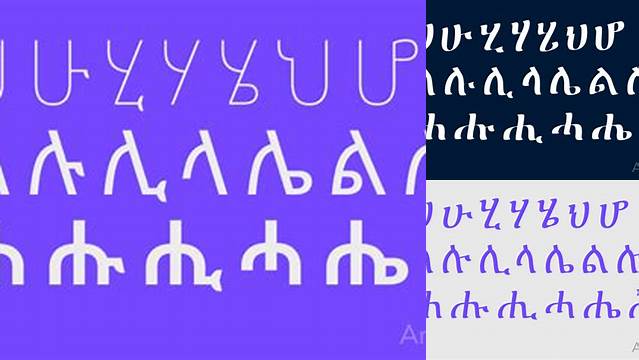
Free Amharic Fonts: Download The Best Ge'ez Script Typefaces
Are you looking to download free Amharic fonts? You've come to the right place! In this comprehensive guide, we'll explore the fascinating world of Amharic typography, discuss the importance of using the right fonts, and provide you with resources for finding and downloading high-quality Amharic fonts for your projects. Amharic, written in the Ge'ez script, is a beautiful and unique language with a rich history. Using the appropriate fonts is crucial for ensuring readability and accurately representing the nuances of the language. Whether you are designing a website, creating documents, or working on graphic design projects, having access to a diverse range of Amharic fonts is essential. Let's dive in and discover the best options available for free Amharic font downloads.
Understanding Amharic and the Ge'ez Script
Let's kick things off by understanding Amharic and the Ge'ez script. Amharic is the official language of Ethiopia and is spoken by millions of people worldwide. It belongs to the Semitic language family and is closely related to other languages like Tigrinya and Hebrew. What makes Amharic unique is its writing system, the Ge'ez script (also known as Ethiopic script). This script is an abugida, where each symbol represents a consonant-vowel pair. The Ge'ez script is visually distinct and adds a unique aesthetic to any text written in Amharic. It's crucial to use fonts that accurately represent this script to maintain the integrity and beauty of the language. Using the wrong fonts can lead to misinterpretations and make the text difficult to read. For instance, some fonts may not include all the necessary characters or ligatures, which are essential for proper Amharic typography. Imagine trying to read English if some letters were missing or replaced with similar-looking symbols – that's the kind of challenge you might face with poorly designed or incomplete Amharic fonts. So, selecting the right font isn't just about aesthetics; it's about ensuring clear communication and respect for the language itself. Whether you're creating a poster, a website, or a document, the font you choose plays a significant role in how your message is received and understood.
Why High-Quality Amharic Fonts Matter
Now, let's talk about why high-quality Amharic fonts matter. You might be thinking, "Why can't I just use any font that has Amharic characters?" Well, guys, it's not that simple! High-quality Amharic fonts are essential for several reasons. First and foremost, readability. A well-designed font ensures that each character is clear and distinct, making it easier for readers to understand the text. This is especially crucial in Amharic, where subtle differences in characters can change the meaning of words. Secondly, aesthetics. A good font enhances the visual appeal of your work, making it more engaging and professional-looking. Imagine creating a beautiful poster or website, only to have the Amharic text look clunky or awkward because of a poorly designed font. It can really detract from the overall impact. Thirdly, cultural accuracy. Amharic fonts should accurately represent the Ge'ez script, including all the necessary characters and ligatures. Using a font that doesn't do this can be disrespectful to the language and culture. Think of it like this: you wouldn't want to use a font that mashes up English letters with other symbols, right? It's the same principle here. So, investing in or finding high-quality Amharic fonts is an investment in the clarity, beauty, and cultural integrity of your work. It's about showing respect for the language and your audience. Whether you're a designer, a writer, or anyone else working with Amharic text, choosing the right font is a crucial step in creating effective and impactful communication. In addition to readability, aesthetics, and cultural accuracy, high-quality Amharic fonts also ensure consistency across different platforms and devices. A well-designed font will render correctly on various operating systems, web browsers, and mobile devices, preventing unexpected display issues. This is particularly important if your work will be viewed by a wide audience, as you want to ensure that everyone has the same positive reading experience.
Where to Find Free Amharic Fonts
Okay, so where can you actually find free Amharic fonts? Don't worry, there are some great resources out there! One of the best places to start is Google Fonts. They have a selection of Amharic fonts that are free to use and easy to implement on websites. Another great resource is the Ethiopian Font Project, which aims to create and distribute high-quality Amharic fonts. They have a variety of fonts available for download, including both traditional and modern styles. Font libraries like Font Squirrel and DaFont also sometimes offer free Amharic fonts, so it's worth checking those out as well. When you're downloading fonts, make sure to pay attention to the license. Most free fonts come with a specific license that outlines how you can use them. Some licenses may restrict commercial use, while others allow it. It's always a good idea to read the license carefully before using a font in your project. Another tip for finding free Amharic fonts is to explore online communities and forums dedicated to Ethiopian languages and culture. These communities often share resources and recommendations for fonts, as well as other helpful information. You might even find some hidden gems that aren't widely available elsewhere. Remember, finding the right font can take some time and experimentation, so don't be afraid to try out different options until you find the perfect fit for your project. The effort you put in will pay off in the end with a polished and professional result. In addition to the resources mentioned above, consider looking at websites and blogs that focus on typography and font design. These sites often feature articles and reviews of various fonts, including Amharic fonts, and may provide links to free downloads or resources. By staying informed about the latest trends and developments in typography, you can ensure that you're always using the best possible fonts for your projects.
Top Free Amharic Fonts to Download
Let's get specific, top free Amharic fonts to download, shall we? Here are a few of my favorites that you should definitely check out. First up, we have Abyssinica SIL. This is a super popular choice because it's highly readable and supports a wide range of Amharic characters. It's a great all-around font for both body text and headings. Next, there's Ethiopic Wookianos. This font has a more traditional feel, making it perfect for projects that need a touch of Ethiopian heritage. It's especially good for titles and decorative elements. Then we have Visual Geez Unicode. This font is known for its clean and modern design, making it a great option for contemporary projects. It's particularly well-suited for web design and digital publications. Another font to consider is GF Zemen Unicode. This font is part of the Google Fonts collection, so it's easy to use on websites. It's a versatile font that works well in a variety of contexts. And last but not least, we have Jiret. This font has a unique and elegant style, making it a great choice for projects that need a touch of sophistication. It's particularly good for logos and branding materials. When you're choosing a font, think about the overall tone and style of your project. Do you want something traditional or modern? Formal or informal? The right font can help you convey the right message and create the desired impact. Don't be afraid to experiment with different fonts until you find one that you love. One more tip: it's always a good idea to download a few different fonts so you have options to choose from. You might find that one font works better for headings, while another is more suitable for body text. Having a variety of fonts in your toolkit will give you more flexibility and creativity in your design projects. Remember to test the fonts you download to ensure they render correctly on different devices and platforms. This will help you avoid any unexpected issues and ensure that your text looks its best no matter where it's viewed.
Tips for Choosing the Right Amharic Font
Choosing the right font can feel like a big decision, so let's break down some tips for choosing the right Amharic font. First, consider the purpose of your project. Are you writing a formal document, designing a website, or creating a poster? The best font for each of these projects will be different. For formal documents, you'll want to choose a font that is clean and professional-looking, like Abyssinica SIL or GF Zemen Unicode. For websites, you'll want to choose a font that is easy to read on screens, like Visual Geez Unicode. And for posters, you have more flexibility to choose a font that is eye-catching and expressive, like Ethiopic Wookianos or Jiret. Second, think about the tone and style of your project. Do you want to convey a traditional feel or a modern feel? A formal tone or an informal tone? The font you choose should reflect the overall tone and style of your project. For example, if you're creating a project about Ethiopian history, you might want to use a font that has a traditional look and feel. On the other hand, if you're creating a project about contemporary Ethiopian culture, you might want to use a font that has a more modern design. Third, consider the readability of the font. Make sure that the font is easy to read, especially if you're using it for body text. Avoid fonts that are too decorative or have unusual letterforms, as these can be difficult to read. Test the font in different sizes and weights to see how it looks. Fourth, think about the cultural appropriateness of the font. Make sure that the font accurately represents the Ge'ez script and includes all the necessary characters and ligatures. Using a font that doesn't do this can be disrespectful to the language and culture. Fifth, don't be afraid to experiment! Try out different fonts until you find one that you love. You might be surprised at what you discover. And remember, there's no one right answer when it comes to choosing a font. The best font is the one that works best for your project and your personal taste. In addition to these tips, consider the technical aspects of the font. Check if the font supports the specific characters and ligatures required for your Amharic text. Also, ensure that the font renders correctly on different devices and platforms, as mentioned earlier. By paying attention to these technical details, you can avoid potential issues and ensure a smooth and consistent experience for your audience.
Common Mistakes to Avoid When Using Amharic Fonts
Let's wrap things up by talking about common mistakes to avoid when using Amharic fonts. One of the biggest mistakes is using a font that doesn't support all the Amharic characters. This can lead to missing characters or incorrect renderings, which can make your text difficult to read or even change the meaning. Always double-check that the font you're using includes all the characters you need. Another common mistake is using too many different fonts in one project. This can create a cluttered and unprofessional look. It's generally best to stick to two or three fonts at most. Choose one font for headings and another for body text, and use them consistently throughout your project. A third mistake is using a font that is too small or too large. Make sure that the font size is appropriate for the context. Body text should be large enough to read comfortably, while headings can be larger to draw attention. A fourth mistake is not paying attention to spacing. Amharic characters can sometimes require different spacing than Latin characters. Adjust the line spacing and letter spacing as needed to improve readability. A fifth mistake is using a font that is not licensed for your intended use. Always check the font license before using a font in a commercial project. Many free fonts have restrictions on commercial use. Another mistake to avoid is using a low-quality font. Low-quality fonts may have poorly designed characters or rendering issues, which can detract from the overall appearance of your work. Stick to high-quality fonts from reputable sources. Additionally, be mindful of font pairings. Just like colors, certain fonts work well together, while others clash. Experiment with different font combinations to find ones that complement each other and enhance the visual appeal of your project. Consider using a font pairing tool or consulting resources on typography to guide your choices. Finally, remember that choosing the right font is not just about aesthetics; it's also about accessibility. Ensure that your font choices are legible for people with visual impairments. Use sufficient contrast between the text and background, and avoid overly decorative or stylized fonts that may be difficult to read. By avoiding these common mistakes, you can ensure that your Amharic text is clear, professional, and effective. Choosing the right fonts and using them correctly will make a significant difference in the overall impact of your work.